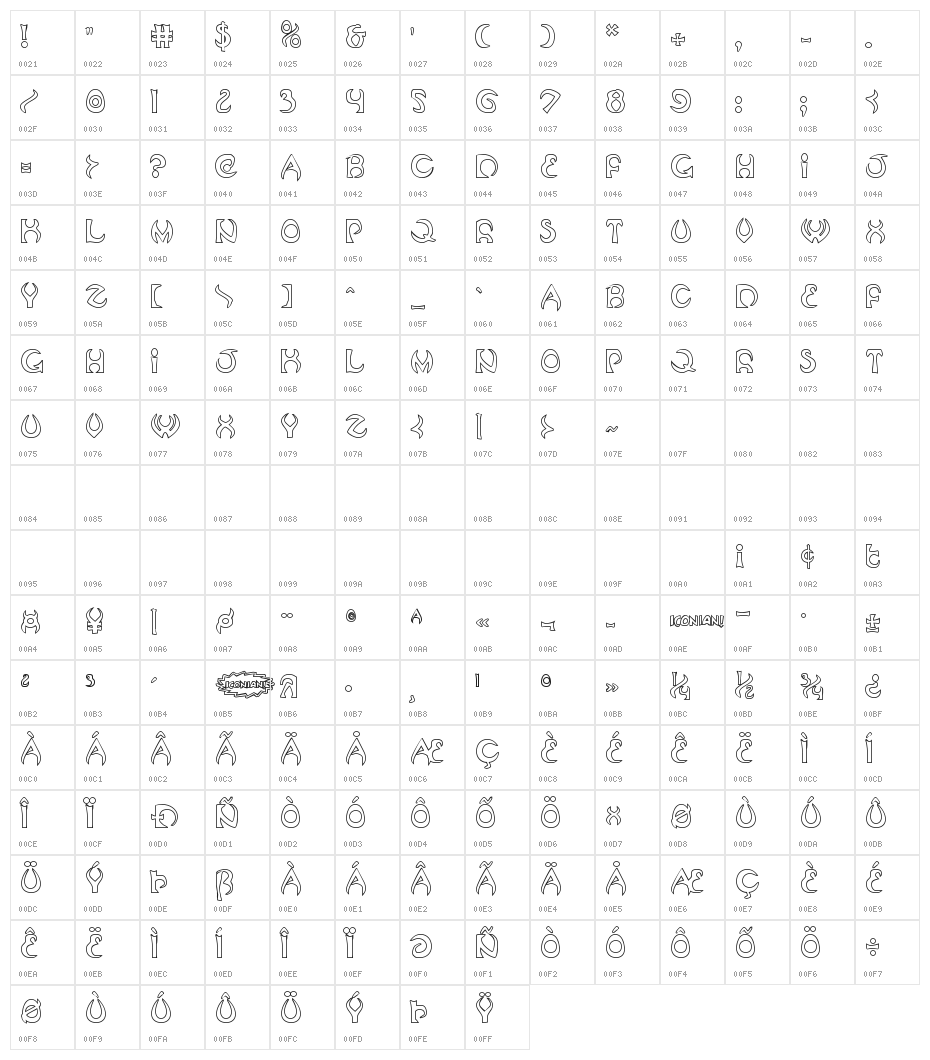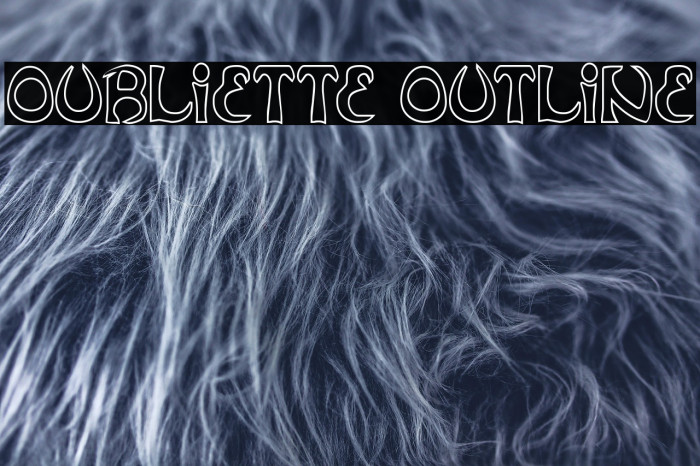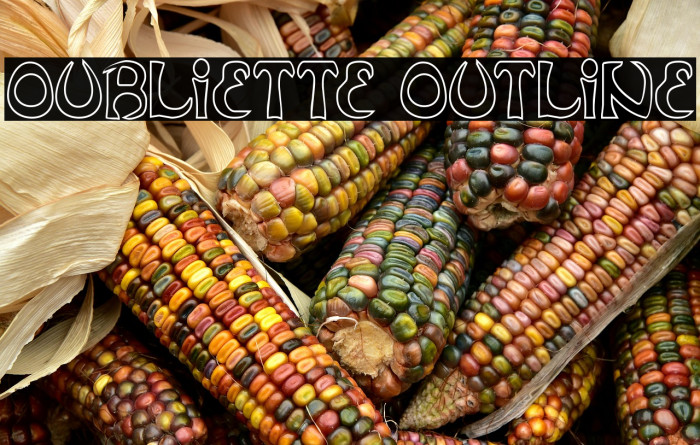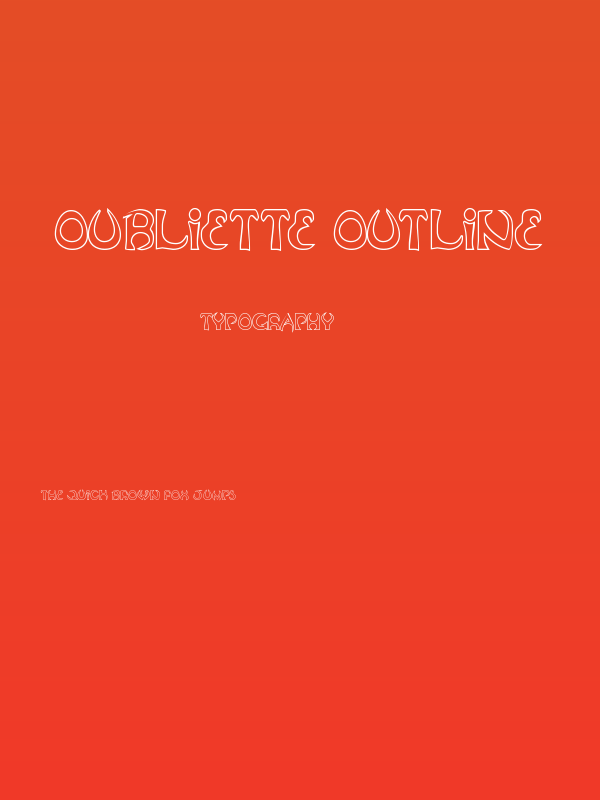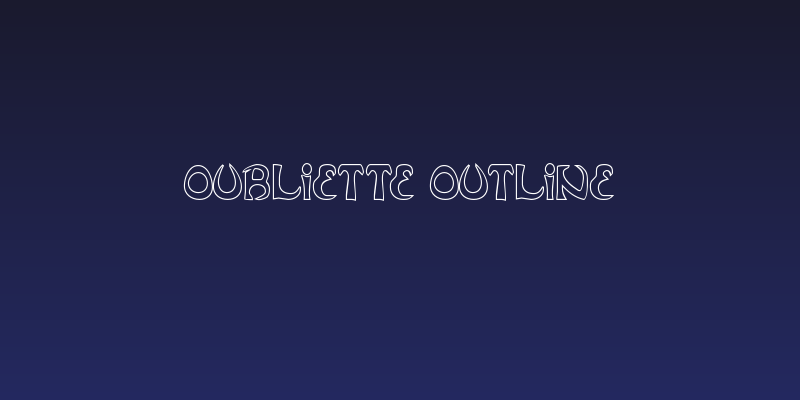
Oubliette Outline Font
Oubliette Outline Description
This font features an outline style with a unique and artistic flair. The characters are bold and have a decorative, almost whimsical appearance, with curves and angles that give them a dynamic and engaging look. The uppercase and lowercase letters maintain a consistent style, with the outlines providing a sense of depth and dimension. The numbers and special characters follow the same design principles, ensuring a cohesive visual identity across all glyphs. This font's playful yet structured design makes it suitable for creative projects that require a standout typographic element.
| Proposed Projects | Ideal for posters, album covers, event invitations, and branding materials that require a distinctive and artistic touch. |